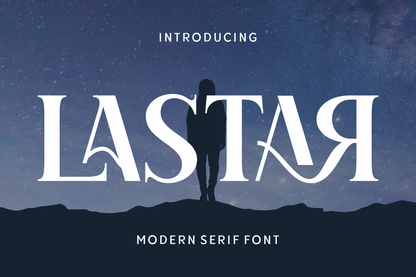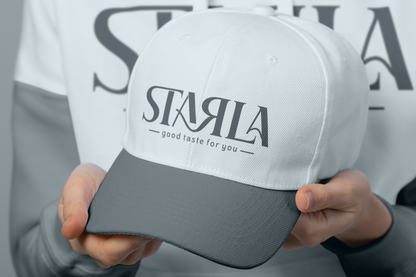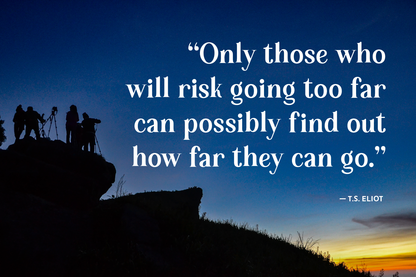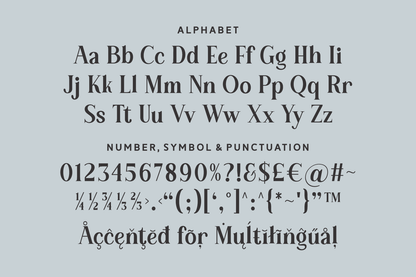
Lastar is a captivating modern serif font that combines elegance with artistic flair. Featuring high contrast strokes, graceful curves, and stunning stylistic alternates—especially in letters like A and R—Lastar adds a bold, creative twist to traditional serif structure. Complete with multilingual support and full punctuation, Lastar is designed to leave a lasting impression.